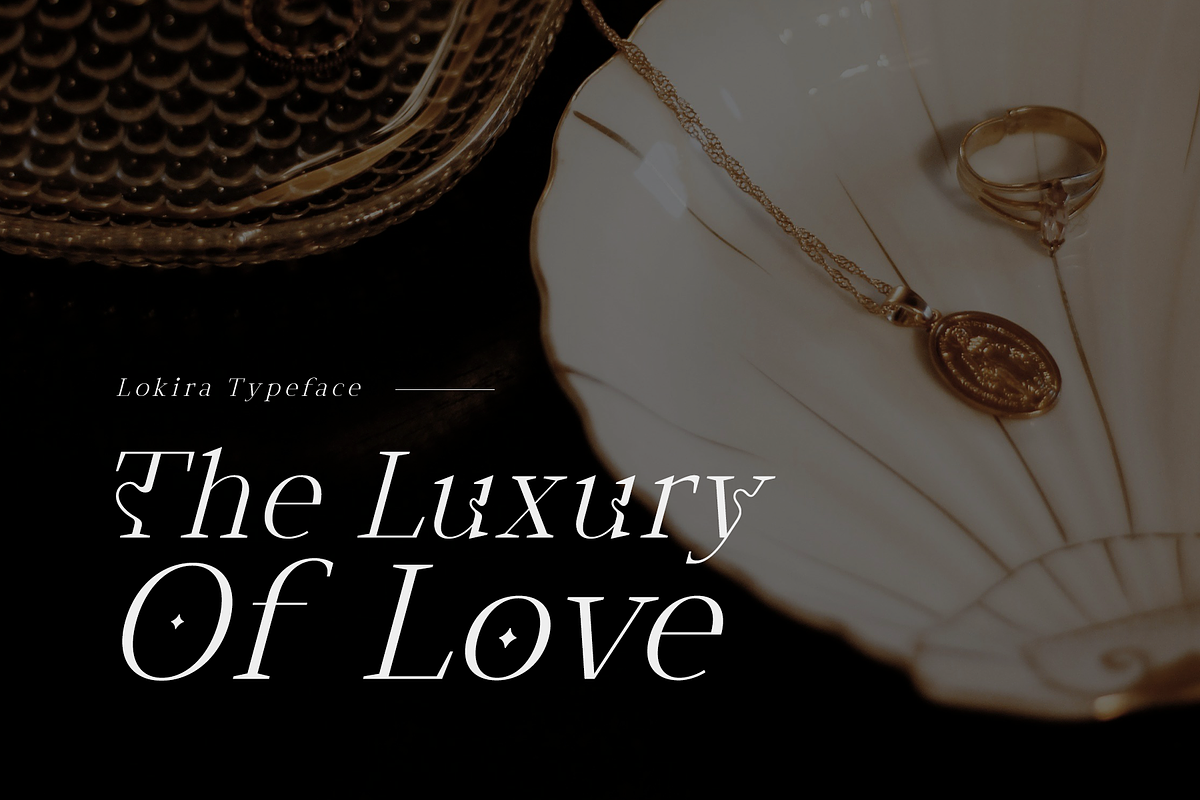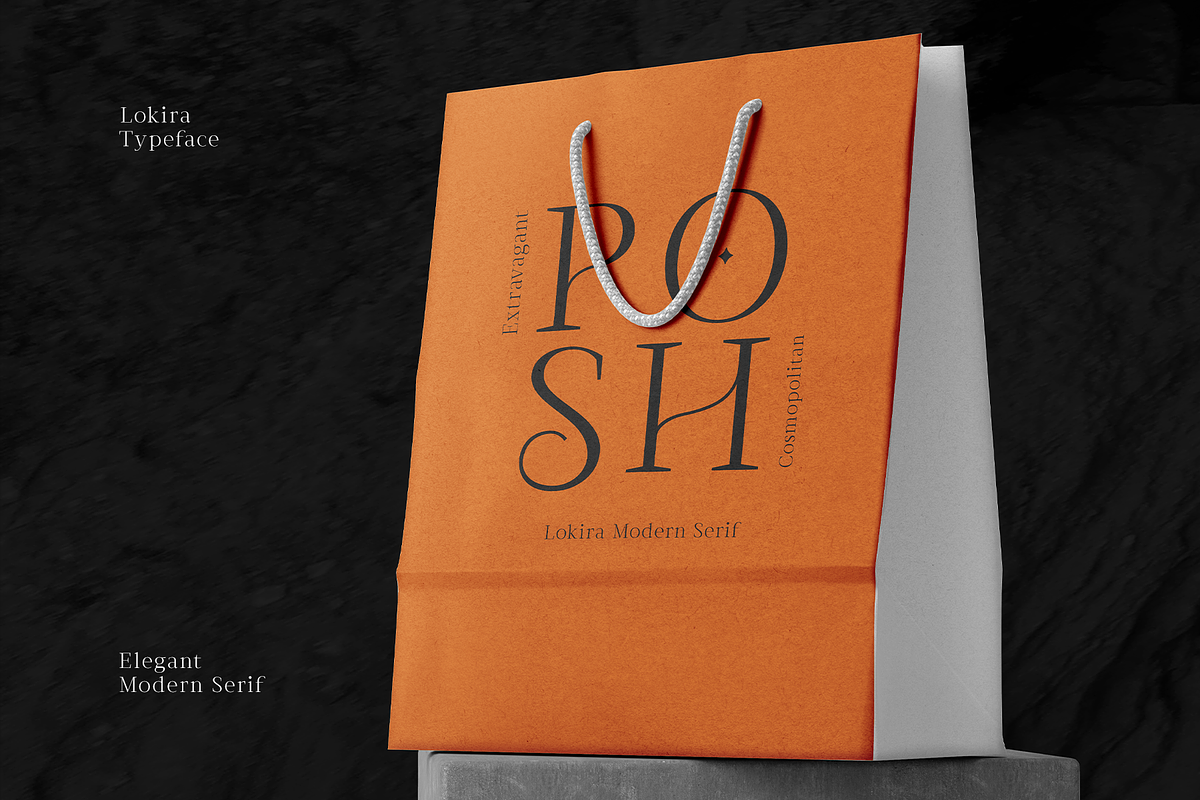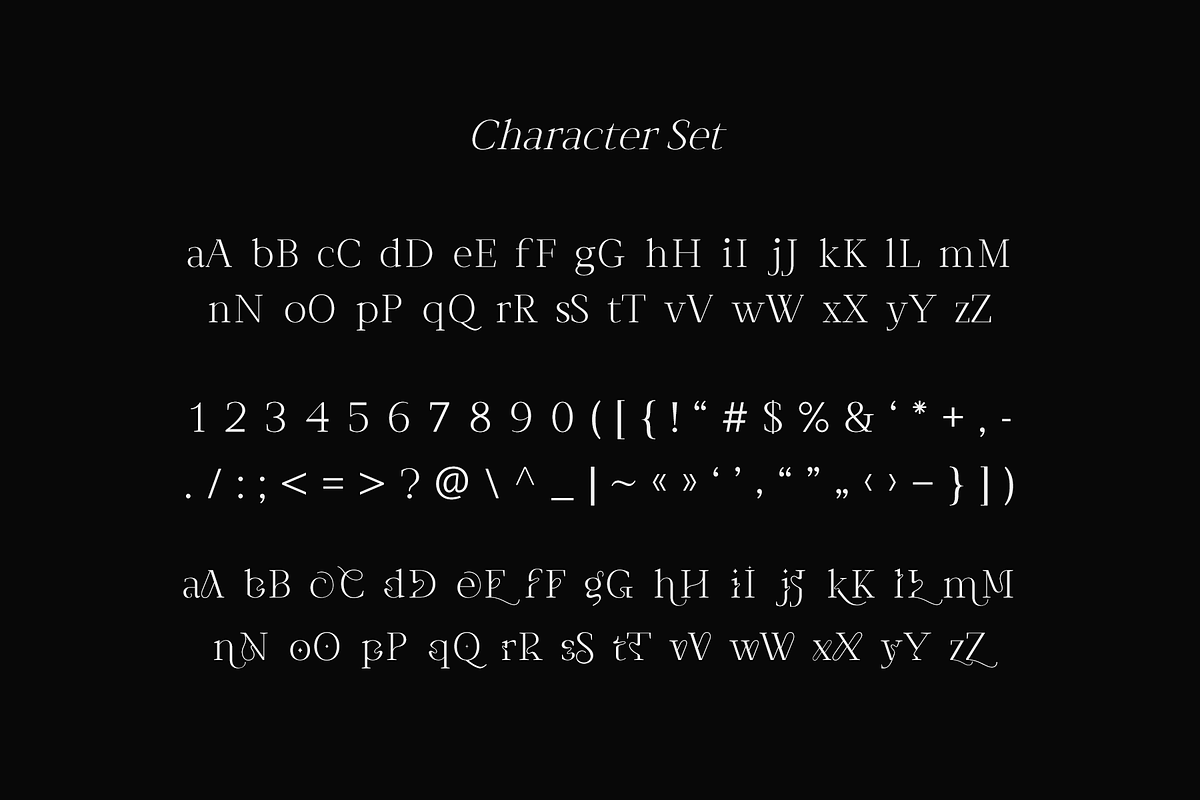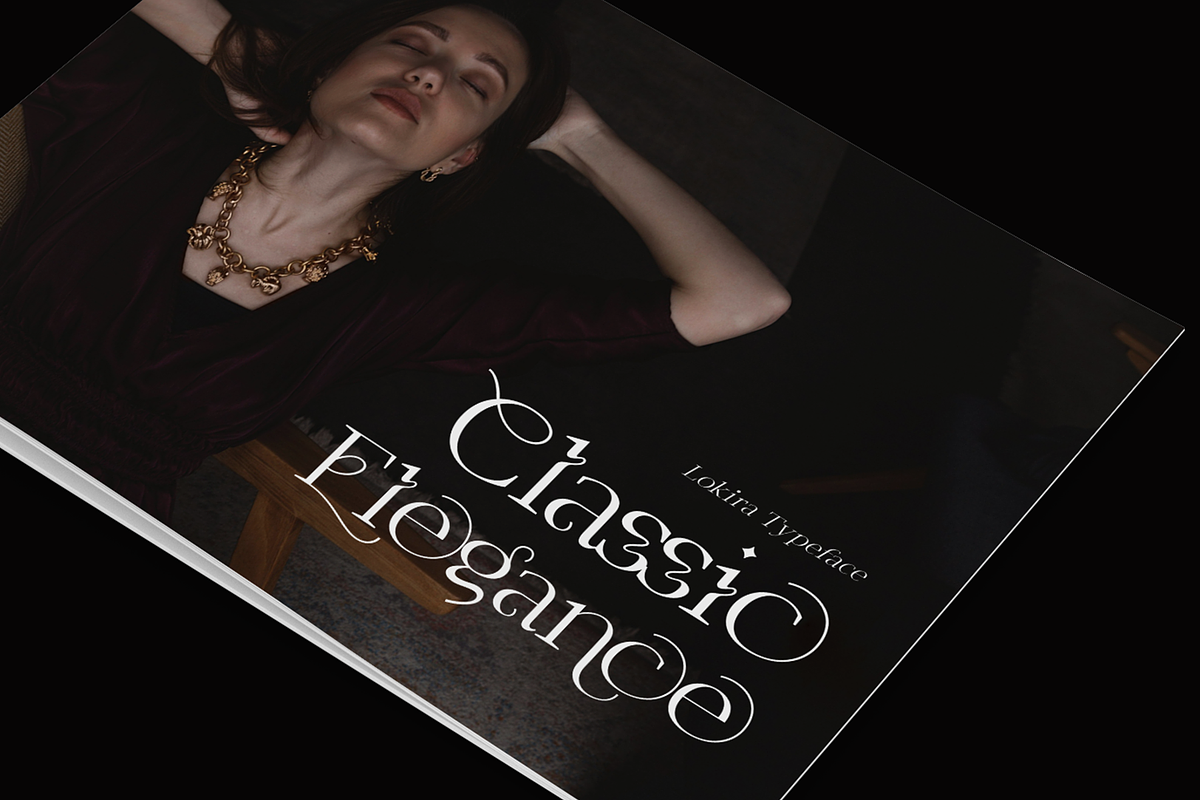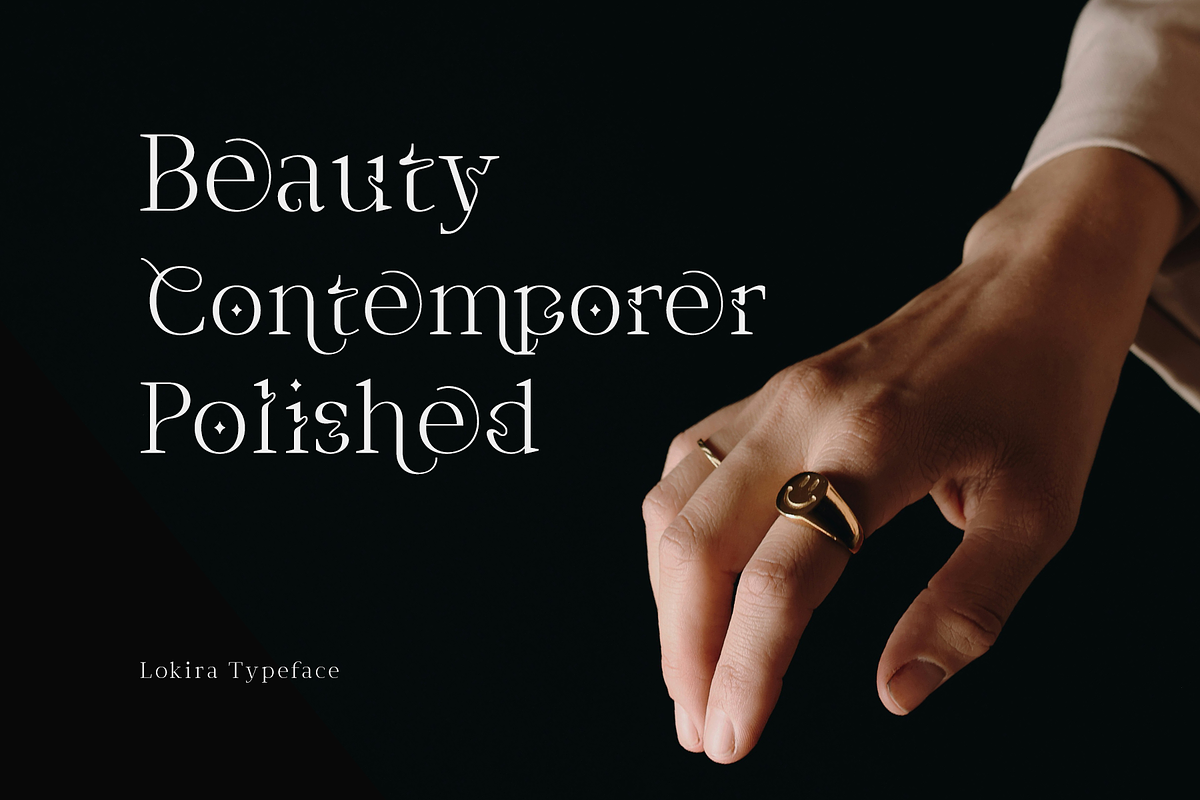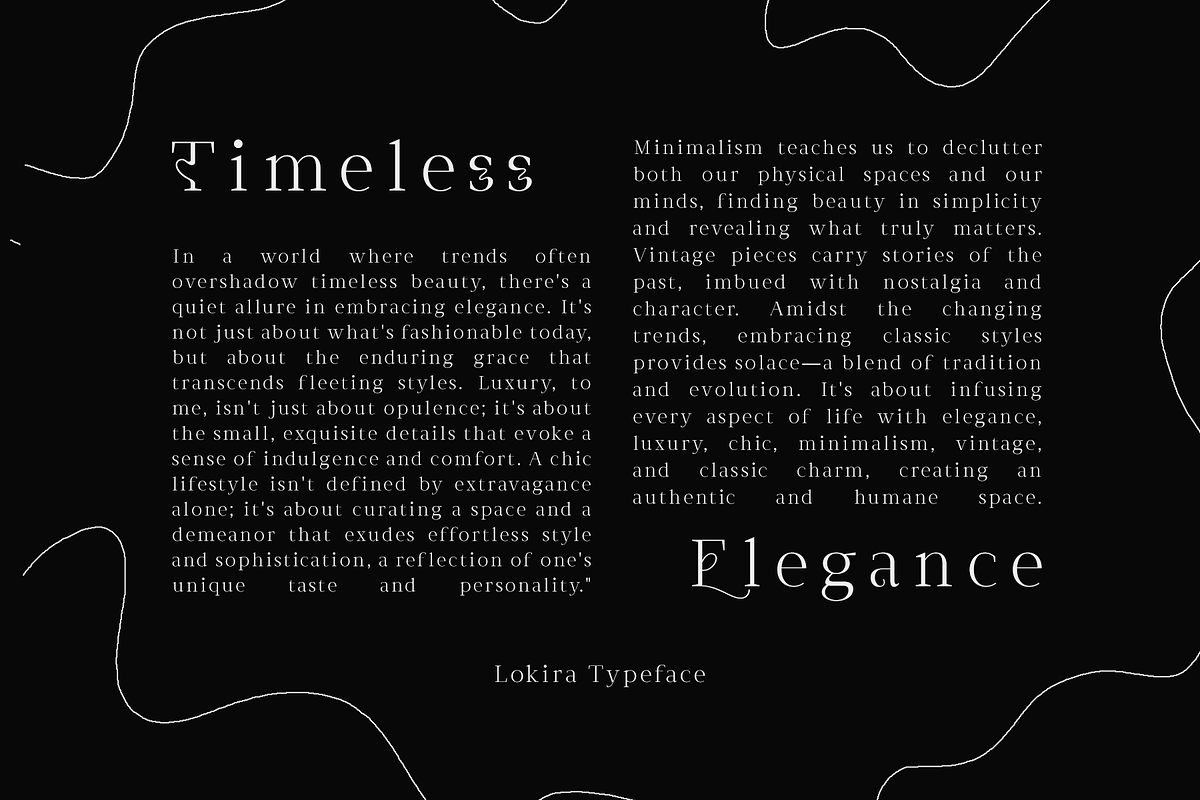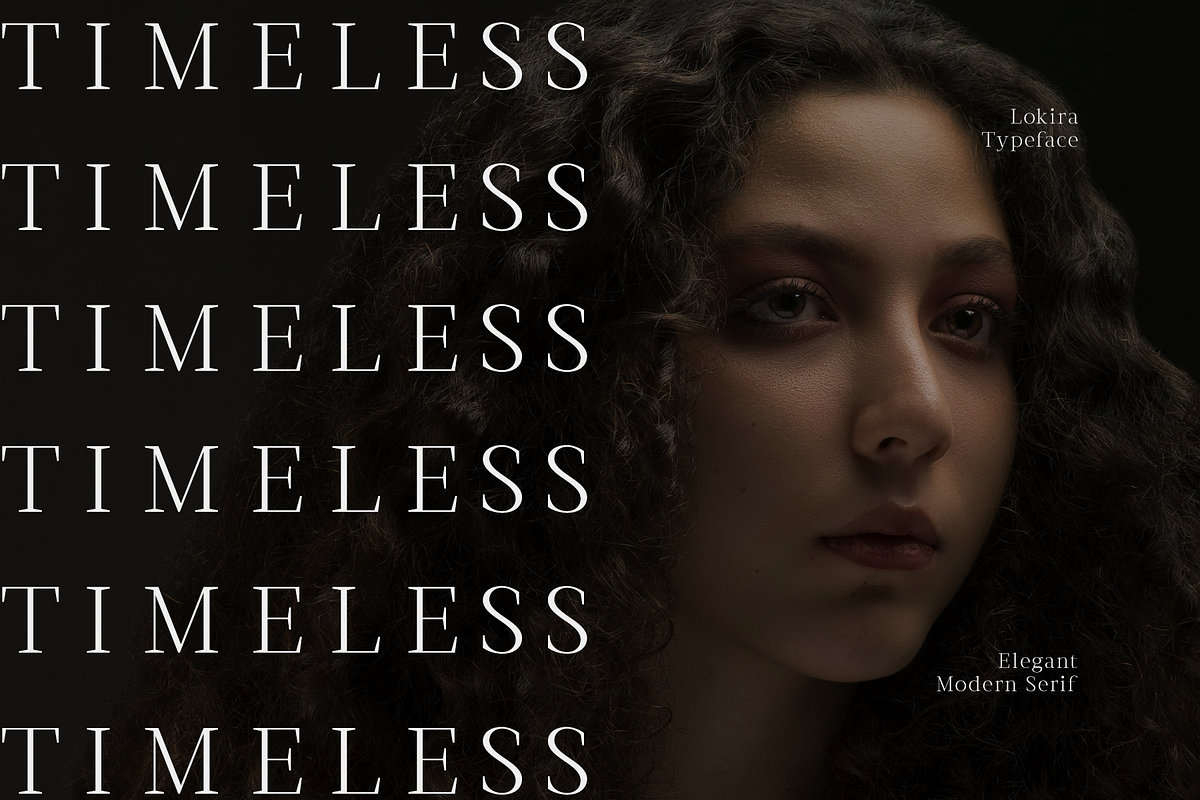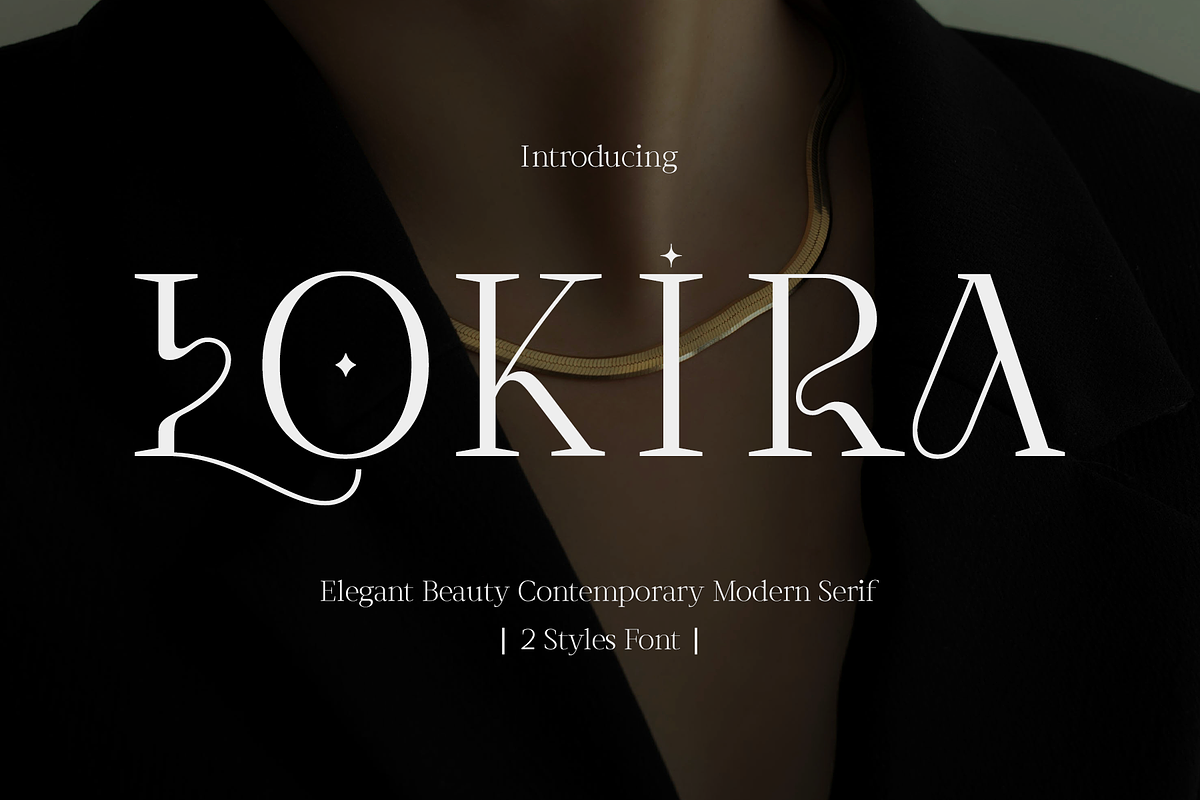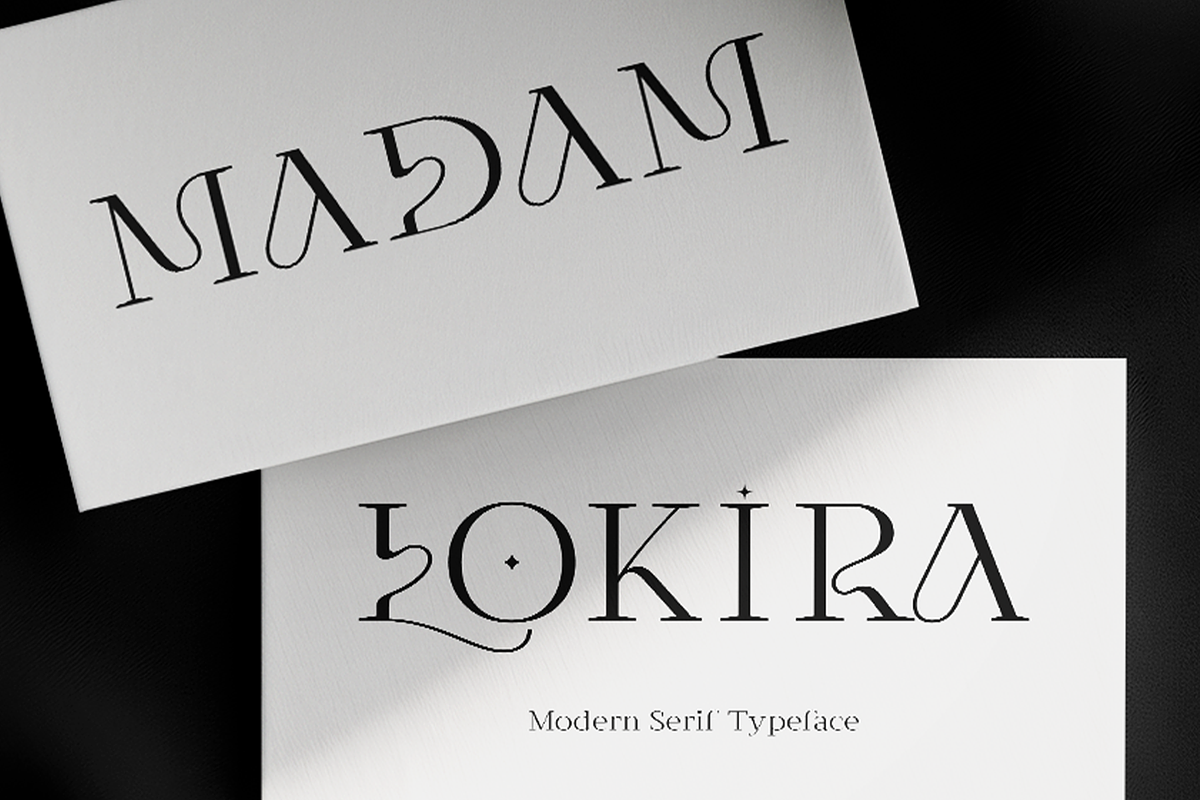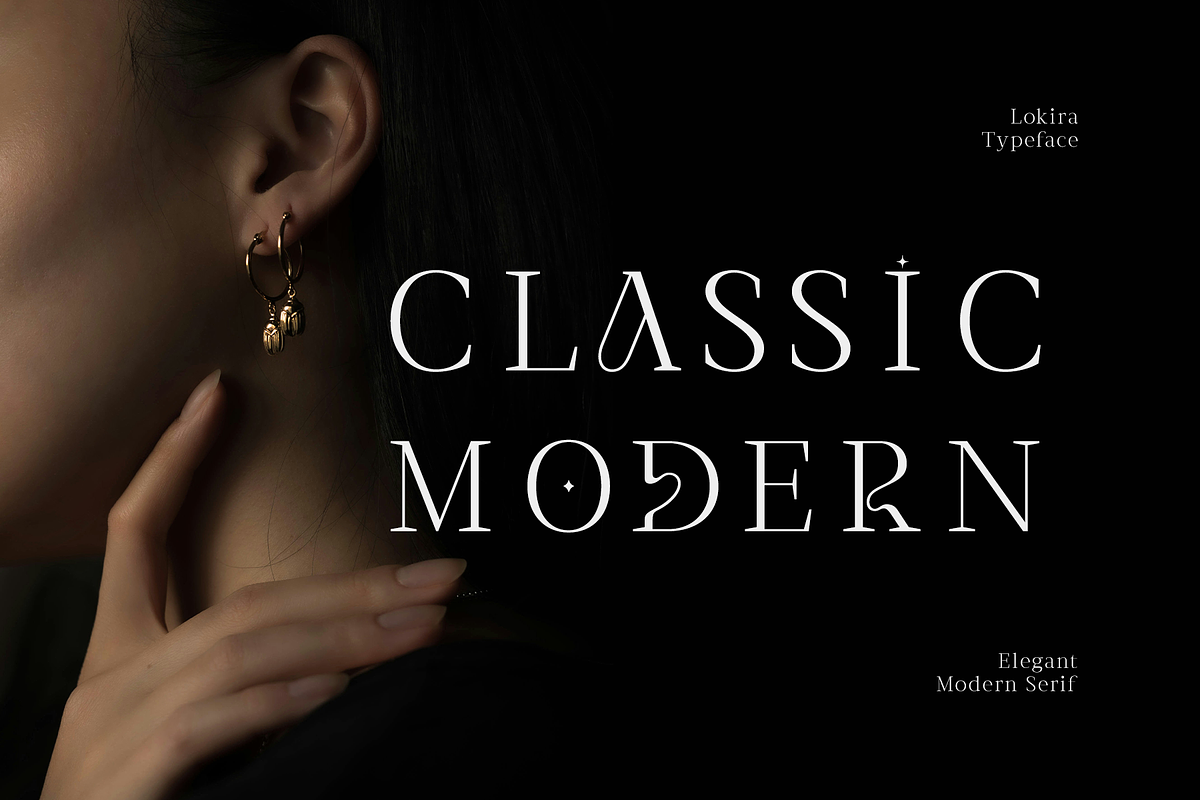
CF Lokira - modern Elegant Serif
Lokira is a modern serif typeface designed with elegance and versatility in mind. The font offers a vast collection of alternates, allowing for customization and the introduction of cursive flourishes into the text. These stylistic variations can add personality and a touch of femininity to your designs. Lokira aims to strike a balance between classic and contemporary aesthetics. The serif design and potentially straight terminals lend a modern touch, while the subtle curves and the availability of elegant cursive-inspired alternates add a layer of timeless sophistication.
- Standard Character A-Z, a-z, 0-9, Punctuation & symbols
- Regular and Italic Style
- Various Alternate Glyphs